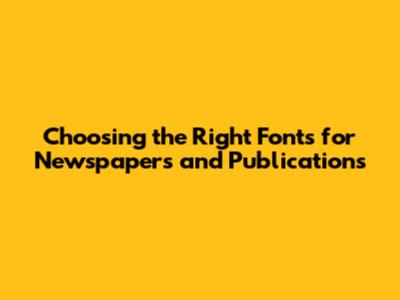
Choosing The Right Fonts For Newspapers And Publications
Choosing the right fonts for newspapers and publications is a critical aspect of ensuring readability, conveying the intended tone, and maintaining a consistent brand identity. The selection of fonts impacts not only the aesthetic appeal of the publication but also its accessibility and overall effectiveness in communicating with its audience. In this comprehensive guide, we'll delve into the key considerations for selecting fonts for newspapers and publications, exploring various font categories, and providing practical tips to help you make informed decisions.
Understanding the Importance of Font Selection
Font selection is more than just an aesthetic choice; it's a fundamental element of visual communication. The fonts you choose can significantly influence how readers perceive your content. Readability, legibility, and visual hierarchy are all directly affected by font selection. A well-chosen font can enhance the reading experience, making the content more engaging and accessible, while a poorly chosen font can deter readers and diminish the impact of your message.
In the realm of newspapers and publications, where vast amounts of information are presented in a compact format, the importance of font selection is amplified. Newspapers aim to deliver news, features, and opinions to a broad audience, and the fonts used must cater to diverse reading habits and preferences. Here's why font selection is paramount:
Readability
Readability refers to how easily readers can understand and process the text. Fonts with clear and simple letterforms, adequate spacing, and appropriate x-height (the height of lowercase letters) enhance readability. Newspapers often use serif fonts for body text because the serifs (the small strokes at the end of letters) guide the eye and improve reading flow. However, some sans-serif fonts can also be highly readable, especially in headlines and shorter text blocks.
Legibility
Legibility is the clarity of individual characters. A legible font ensures that each letter is distinct and easily distinguishable from others. Factors such as letter shape, stroke contrast, and the size of counters (the enclosed or partially enclosed spaces in letters like 'o' and 'p') contribute to legibility. When fonts are used in small sizes or under less-than-ideal printing conditions, legibility becomes even more critical.
Visual Hierarchy
Visual hierarchy is the arrangement of text elements to guide the reader's eye and emphasize important information. Font selection plays a key role in establishing visual hierarchy. Different font styles, sizes, and weights can be used to differentiate headlines, subheadings, body text, and captions, creating a clear structure that helps readers navigate the content. For instance, a bold, larger font might be used for headlines to grab attention, while a smaller, more understated font is used for body text to facilitate comfortable reading.
Tone and Branding
Fonts also contribute to the overall tone and branding of the publication. The choice of fonts can convey a sense of professionalism, authority, modernity, or tradition. For example, a classic serif font like Times New Roman might evoke a sense of credibility and history, while a clean sans-serif font like Helvetica might project a more contemporary and streamlined image. Consistency in font usage across the publication reinforces brand identity and helps readers recognize and connect with the publication.
Accessibility
Accessibility is an increasingly important consideration in font selection. Publications should choose fonts that are accessible to readers with visual impairments or reading disabilities. Fonts with clear letterforms, adequate spacing, and sufficient contrast between text and background can improve accessibility. Additionally, providing options for readers to adjust font sizes and styles can further enhance accessibility.
Exploring Font Categories
When selecting fonts for newspapers and publications, it's essential to understand the different font categories and their characteristics. The main font categories include serif, sans-serif, script, and display fonts. Each category has its own distinct aesthetic and is suitable for different purposes.
Serif Fonts
Serif fonts are characterized by the small strokes or serifs that extend from the ends of the letters. These fonts are often considered more traditional and are commonly used for body text in newspapers, books, and magazines. The serifs help guide the eye along the line of text, improving readability and reducing eye strain. Some popular serif fonts for newspapers include:
• Times New Roman: A classic serif font known for its readability and versatility.
• Georgia: A more modern serif font with a larger x-height, making it highly legible even at small sizes.
• Baskerville: An elegant serif font with a refined appearance, suitable for high-end publications.
• Garamond: A timeless serif font with a delicate and sophisticated feel.
Sans-Serif Fonts
Sans-serif fonts lack the serifs found in serif fonts. They have a cleaner, more modern appearance and are often used for headlines, subheadings, and shorter text blocks. Sans-serif fonts can also be used for body text, especially in online publications, where screen resolution may affect the readability of serif fonts. Some popular sans-serif fonts for newspapers include:
• Helvetica: A widely used sans-serif font known for its neutrality and clarity.
• Arial: A common sans-serif font that is similar to Helvetica but slightly more condensed.
• Open Sans: A humanist sans-serif font designed for readability on screens.
• Roboto: A modern sans-serif font with a dual nature, suitable for both headlines and body text.
Script Fonts
Script fonts resemble handwriting and are typically used for decorative purposes, such as invitations, announcements, and special features. They are generally not suitable for body text in newspapers due to their low readability. When used sparingly, script fonts can add a touch of elegance and personality to headlines or logos.
Display Fonts
Display fonts are designed to grab attention and are often used for headlines, posters, and advertising. These fonts come in a wide variety of styles, from bold and impactful to whimsical and playful. Display fonts should be used judiciously in newspapers to avoid overwhelming the reader and maintaining a consistent tone.
Practical Tips for Selecting Fonts
Selecting the right fonts for your newspaper or publication involves careful consideration of your target audience, the type of content you're publishing, and the overall brand identity you want to convey. Here are some practical tips to help you make informed decisions:
Define Your Target Audience
Understanding your target audience is crucial in font selection. Consider their age, education level, reading habits, and preferences. For example, if your publication caters to an older audience, you may want to choose fonts with larger x-heights and clear letterforms to improve readability. If your publication targets a younger, more tech-savvy audience, you may opt for more modern and unconventional fonts.
Consider the Type of Content
The type of content you're publishing also influences font selection. News articles, features, opinion pieces, and advertisements may require different font styles to effectively communicate their message. For example, news articles may benefit from traditional serif fonts that enhance readability, while advertisements may use bold display fonts to grab attention.
Establish a Font Hierarchy
Creating a font hierarchy is essential for organizing your content and guiding the reader's eye. Use different font sizes, weights, and styles to differentiate headlines, subheadings, body text, and captions. A well-defined font hierarchy creates a clear visual structure that helps readers navigate the content and understand the relative importance of different elements.
Limit the Number of Fonts
Using too many fonts can create a cluttered and confusing design. It's generally recommended to limit the number of fonts to two or three per publication. One font can be used for headlines and subheadings, while another is used for body text. A third font can be used for captions or special features. Consistency in font usage across the publication reinforces brand identity and creates a cohesive look and feel.
Test Font Combinations
Experiment with different font combinations to find the ones that work best for your publication. Pairing a serif font with a sans-serif font is a common approach that creates visual contrast and interest. However, it's important to ensure that the fonts complement each other and don't clash. Test the font combinations in different sizes and weights to see how they look in various contexts.
Consider Printing Conditions
The printing conditions under which your publication will be produced can affect font selection. If your publication is printed on low-quality paper or with limited ink, you may want to choose fonts with thicker strokes and simpler letterforms to ensure legibility. Avoid using thin or delicate fonts that may become blurry or illegible when printed.
Check for Accessibility
Ensure that the fonts you choose are accessible to readers with visual impairments or reading disabilities. Fonts with clear letterforms, adequate spacing, and sufficient contrast between text and background can improve accessibility. Additionally, provide options for readers to adjust font sizes and styles, either in print or online.
Maintain Consistency
Consistency is key to creating a professional and cohesive publication. Once you've selected your fonts, stick to them consistently across all issues. This helps reinforce brand identity and creates a familiar reading experience for your audience.
Font Licensing and Usage Rights
Before using any font in your publication, it's important to understand the font licensing and usage rights. Fonts are often protected by copyright, and you may need to purchase a license to use them legally. Different font licenses may have different restrictions on how the font can be used, such as whether it can be embedded in digital documents or used for commercial purposes. Be sure to read the font license carefully and comply with its terms.
There are many sources for finding fonts, including:
• Commercial font foundries: These companies design and sell fonts, often with extensive licensing options.
• Free font websites: These websites offer free fonts for personal or commercial use, but be sure to check the license terms carefully.
• Font management software: This software helps you organize and manage your fonts, making it easier to find and use the right fonts for your projects.
Choosing the right fonts for newspapers and publications is a critical aspect of effective visual communication. By understanding the importance of font selection, exploring different font categories, and following practical tips, you can create a publication that is both visually appealing and highly readable. Remember to consider your target audience, the type of content you're publishing, and the overall brand identity you want to convey. With careful planning and attention to detail, you can select fonts that enhance the reading experience and help your publication stand out from the crowd. Hey Guys! Remember to keep experimenting and testing new fonts so your publications can be the best of the best!